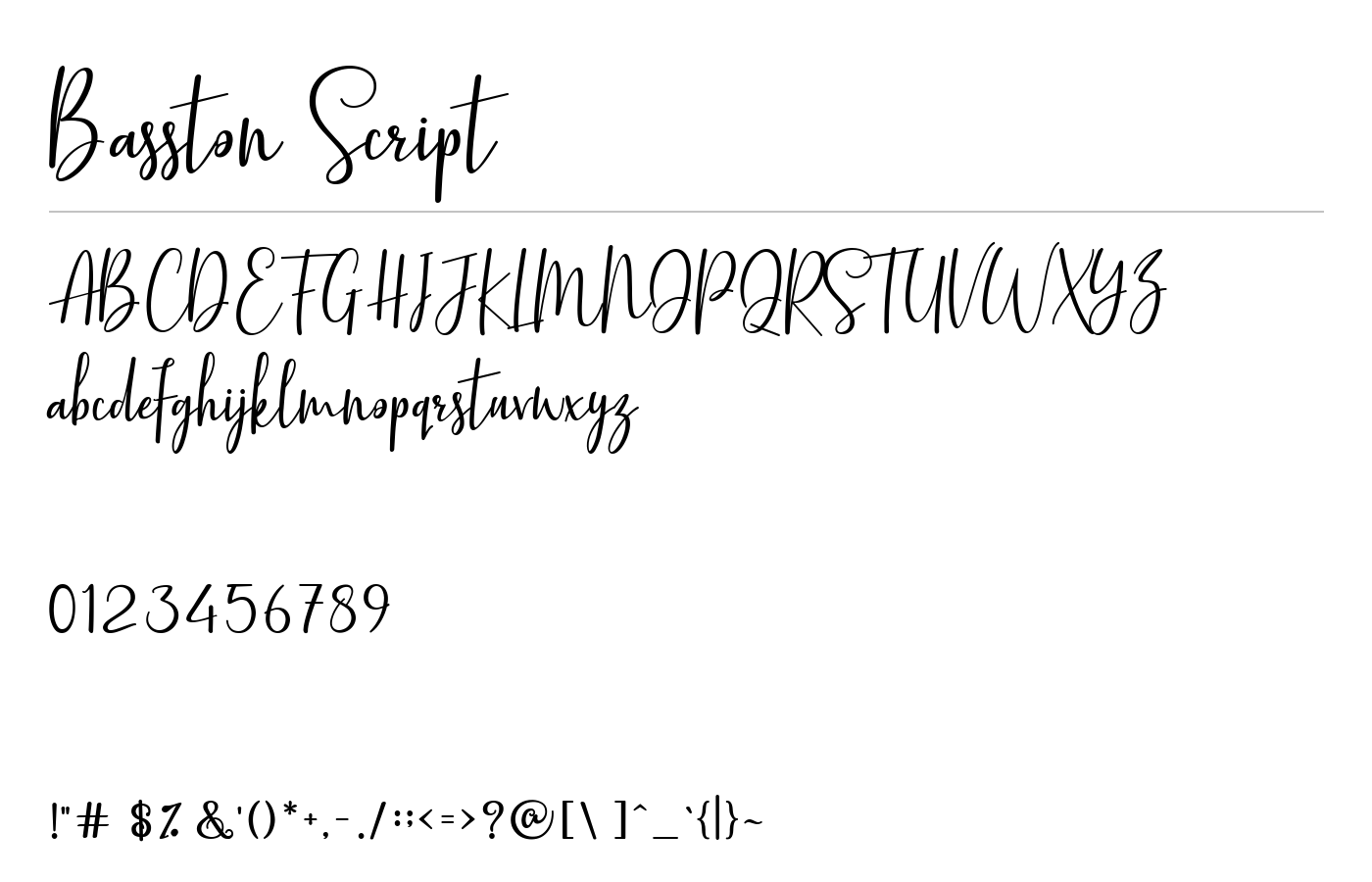
Basston Script is a delicate, handwritten script font with a tall, narrow structure and smooth, flowing strokes that give it a charming and personal feel. Its light weight and elegant curves work beautifully for invitations, branding, and social media, making it ideal for projects that seek a modern yet friendly and sophisticated touch. This font shines in headline and logo use where its graceful, natural style can truly stand out.
Basston Script Font
About Basston Script Font
| Font family | Basston Script Font |
| Designer | Yan Suari Shakti Pasaribu |